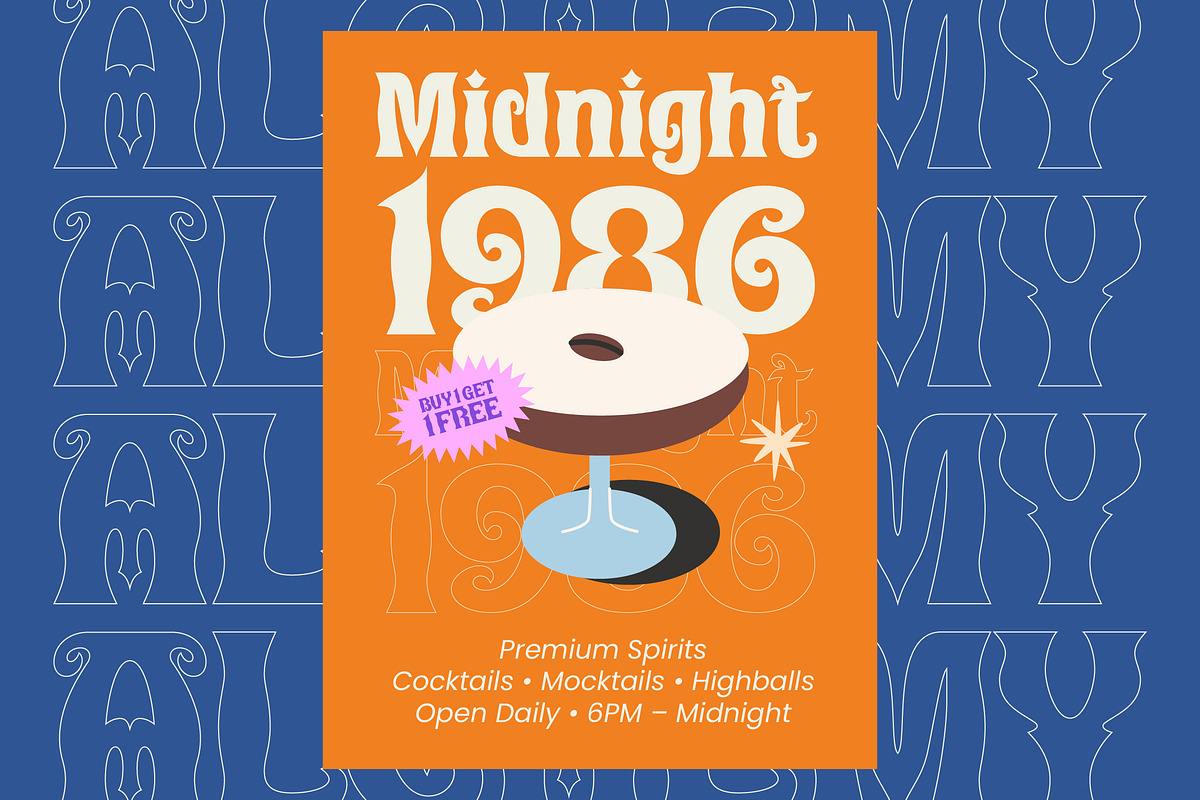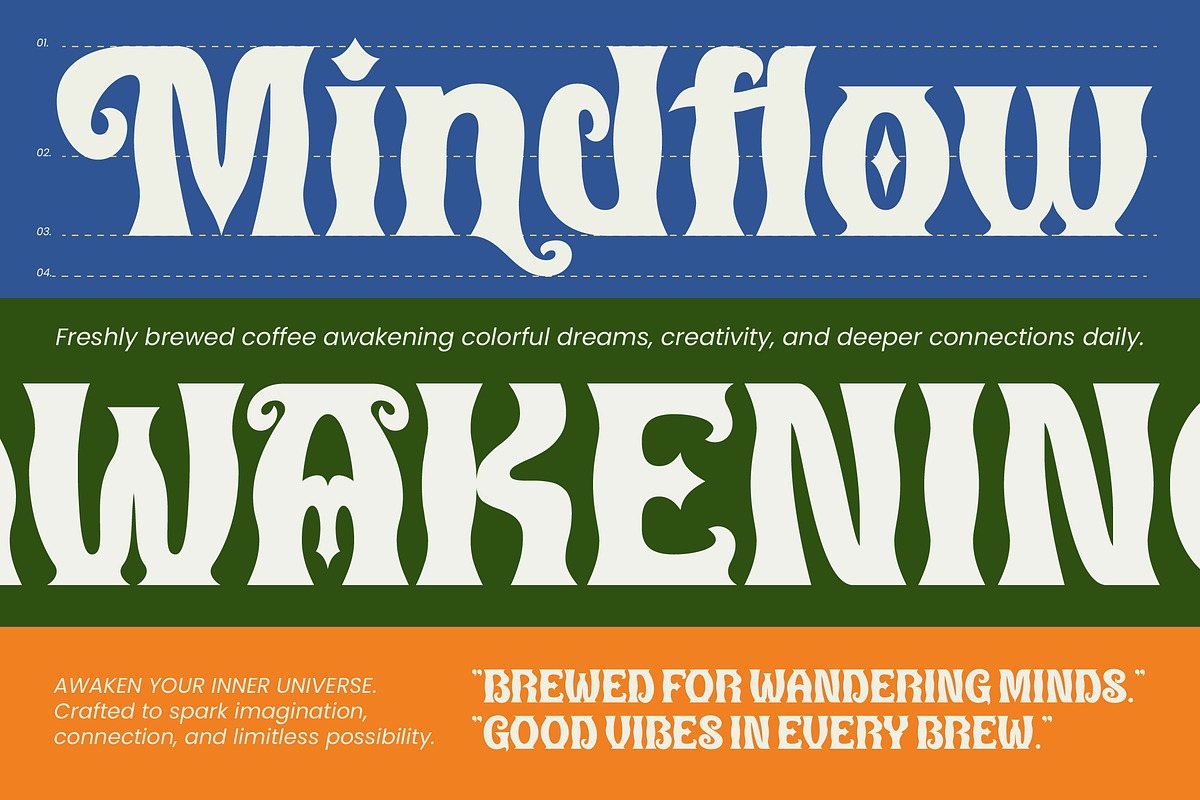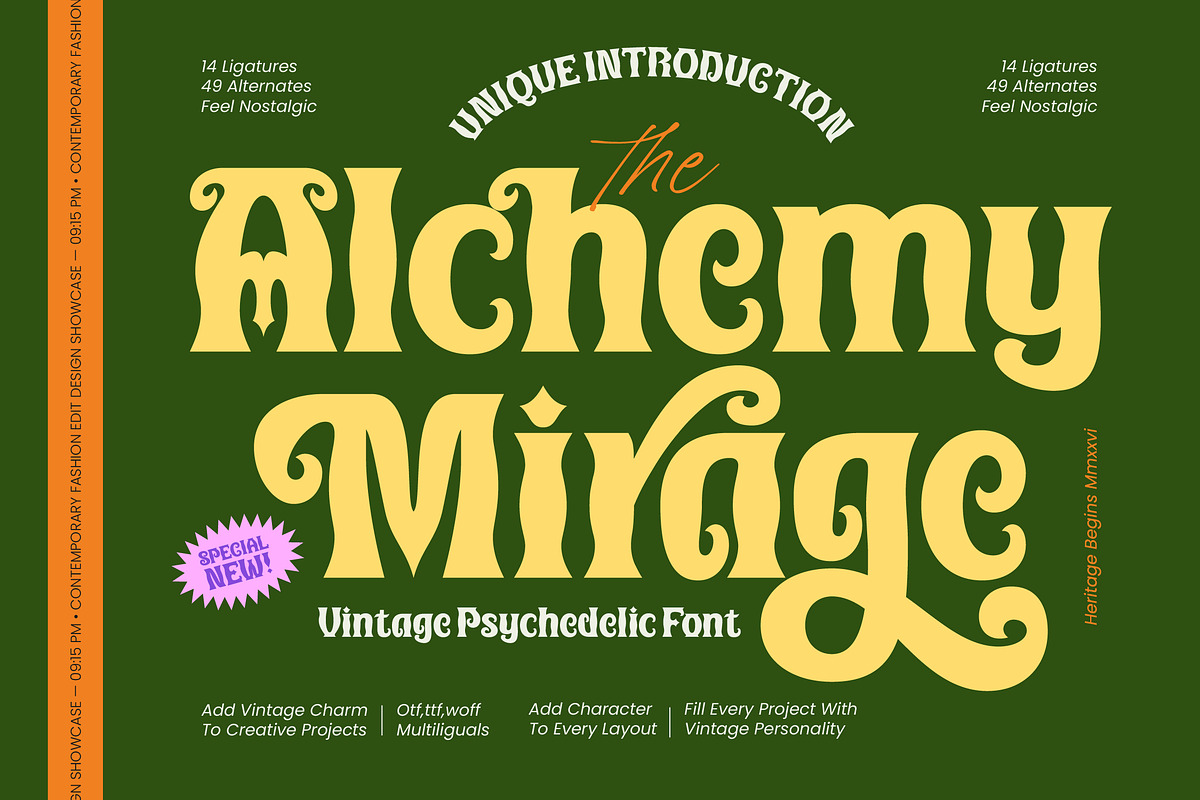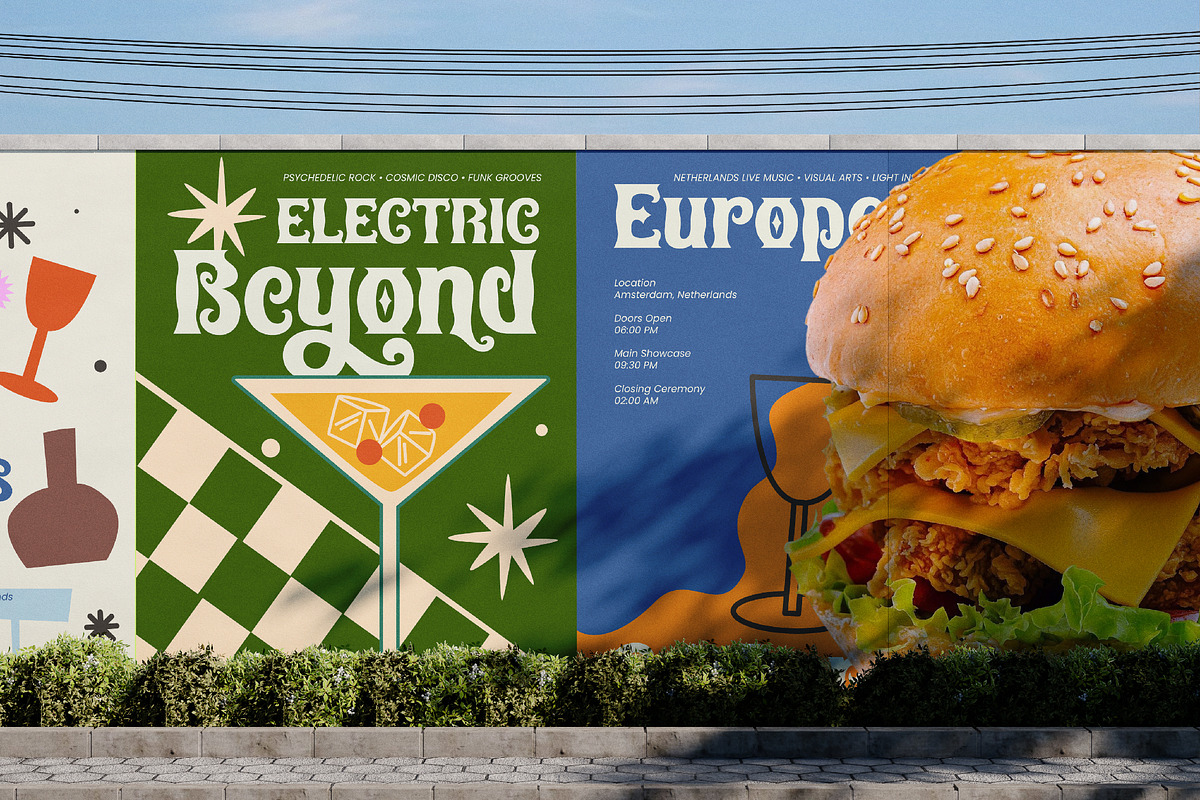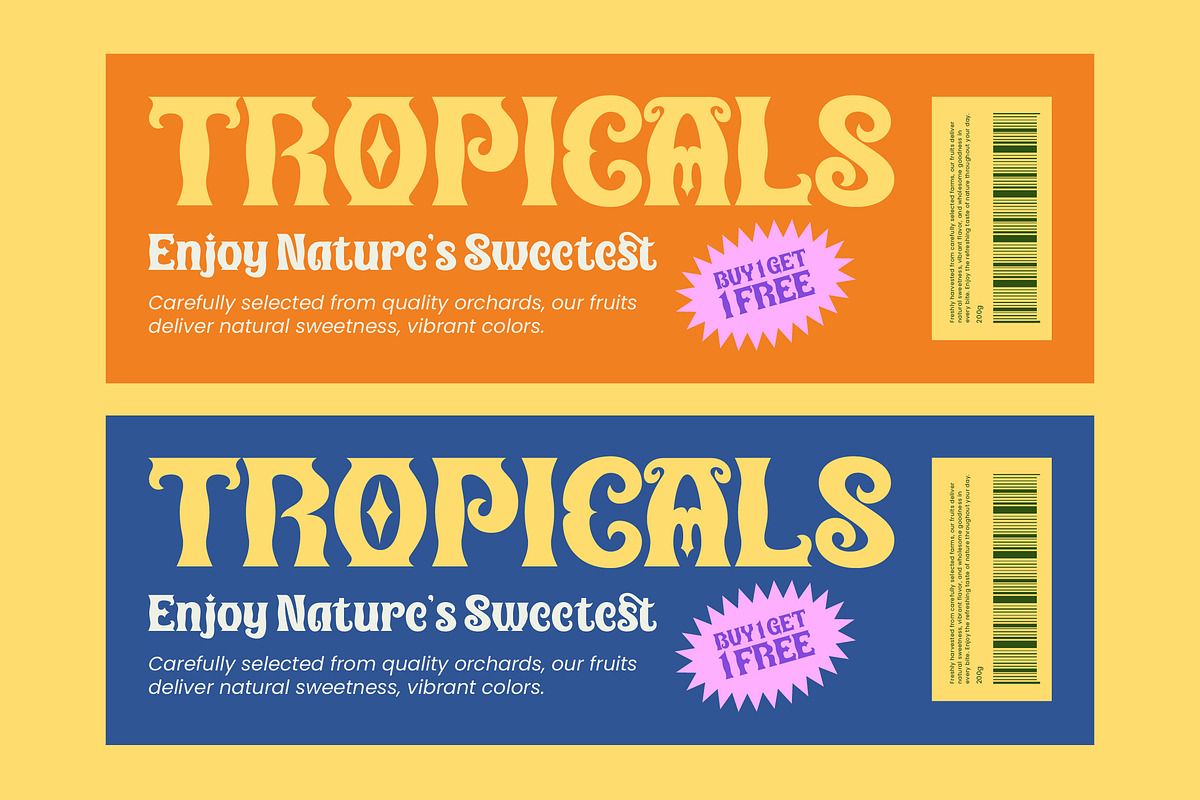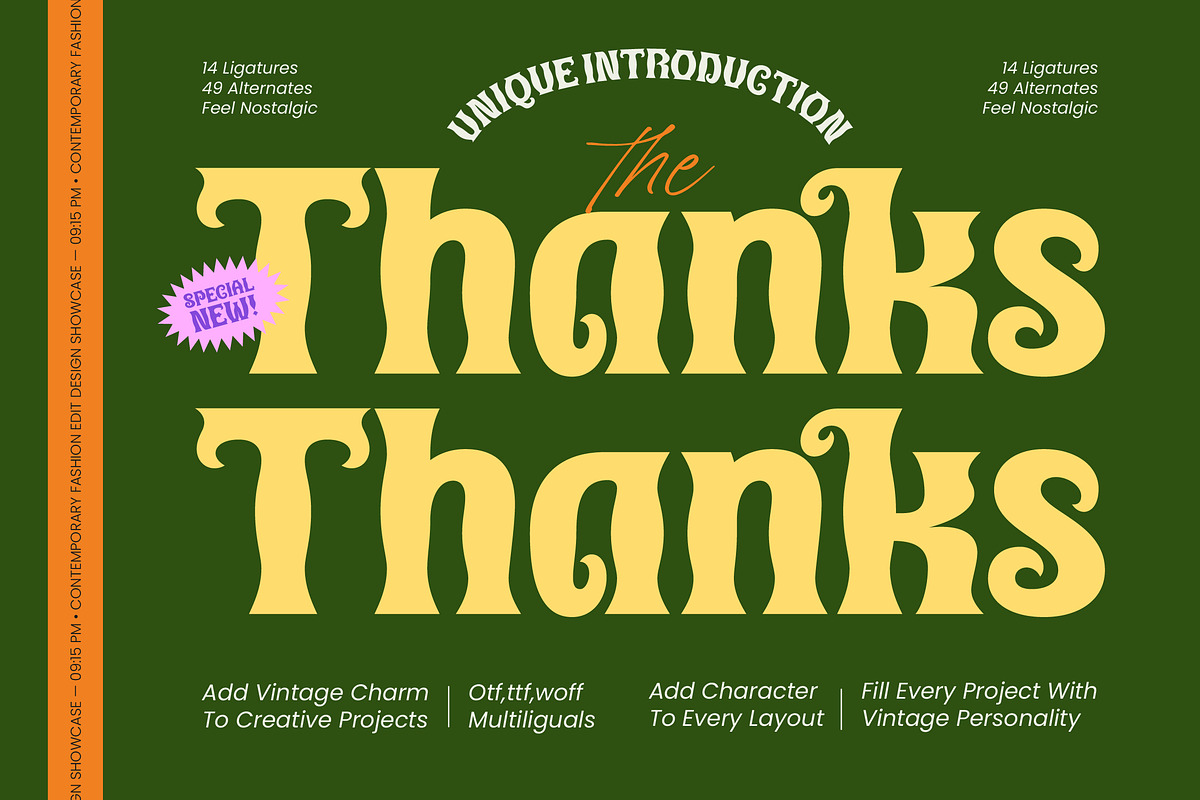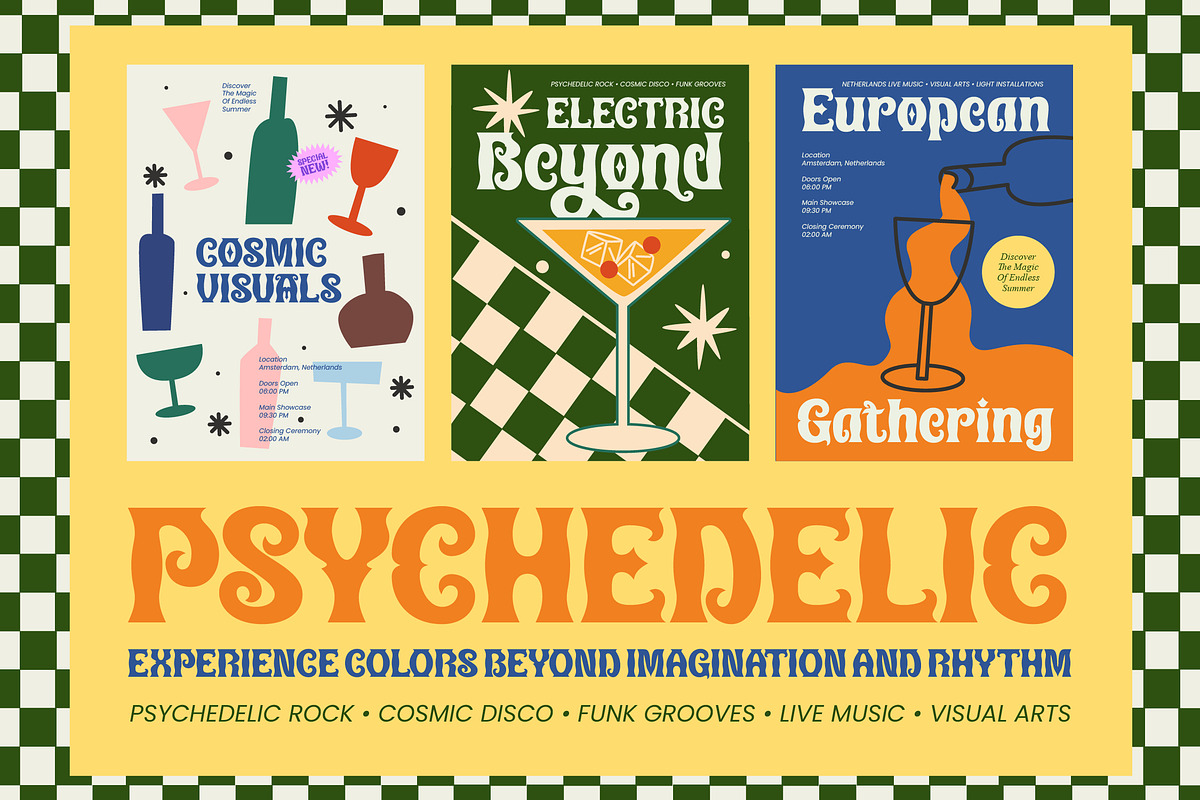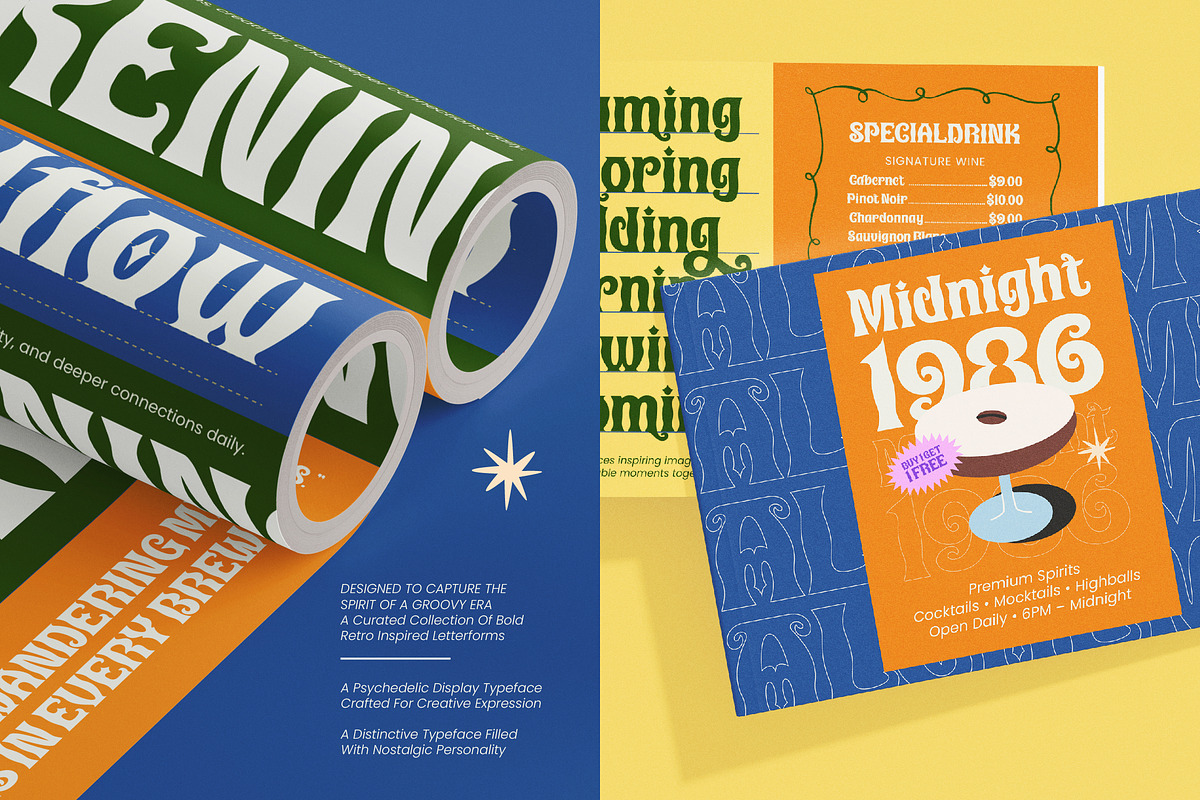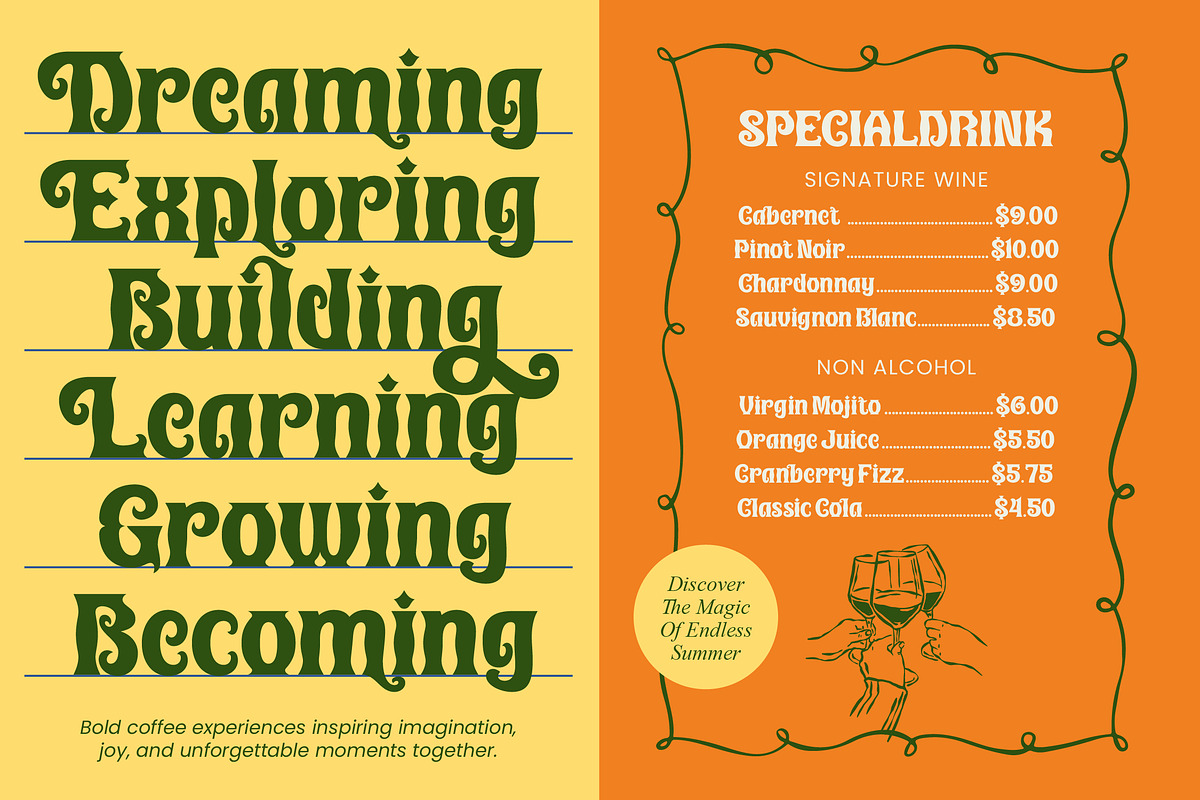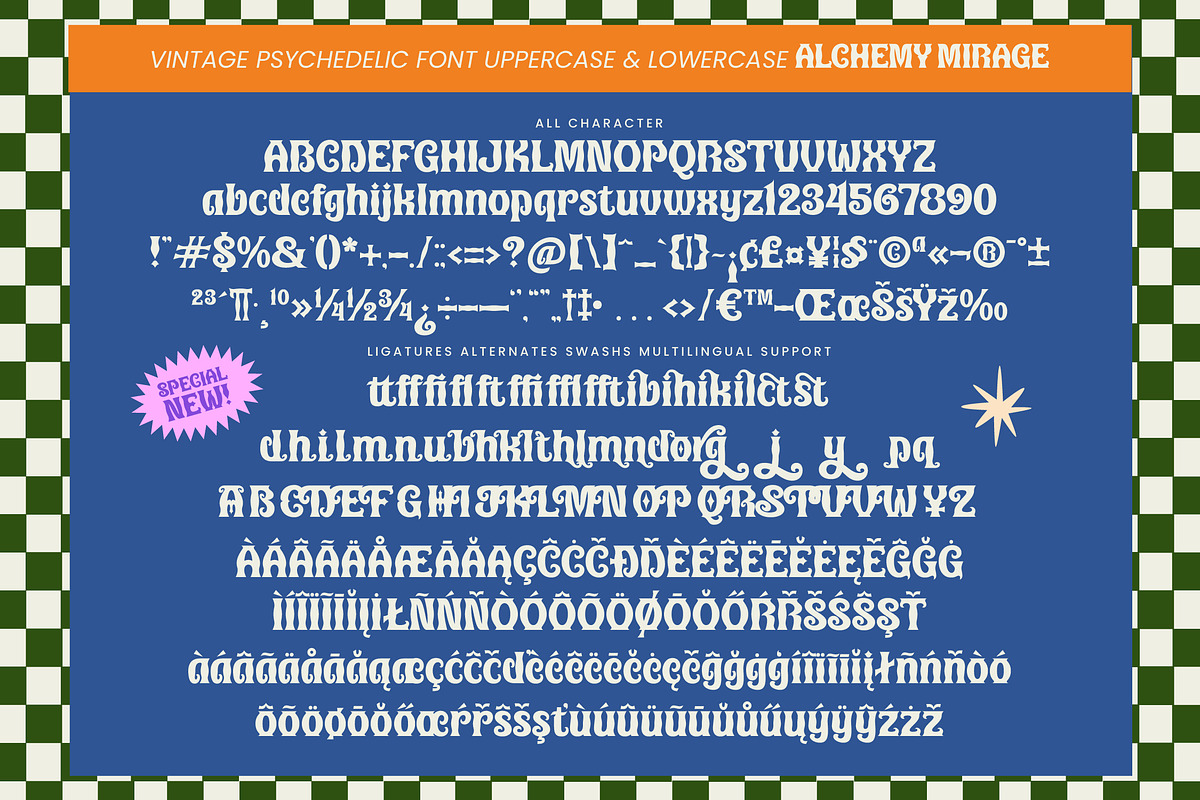
Alchemy Mirage Vintage Psychedelic
Alchemy Mirage – Vintage Psychedelic Font , Experience the mesmerizing allure of Alchemy Mirage – Vintage Psychedelic Font, a typeface that masterfully blends retro aesthetics with contemporary flair. This display font captures the essence of the 1970s psychedelic era, offering fluid curves and bold silhouettes that command attention instantly. Its high-contrast design and liquid-like forms evoke a sense of nostalgia while maintaining the clean lines required for modern professional projects. Whether you are aiming for a whimsical vibe or a sophisticated vintage look, Alchemy Mirage – Vintage Psychedelic Font provides the visual impact necessary to stand out in a crowded market.
Harness the power of unmatched versatility through an extensive collection of 14 unique ligatures and 49 stylistic alternates. These features allow designers to craft bespoke typography that feels custom-made for every layout. With its extensive multilingual support, Alchemy Mirage – Vintage Psychedelic Font adapts seamlessly across global markets, making it incredibly versatile for international projects. The inclusion of various OpenType features ensures that your creative vision is never limited, providing the tools to create dynamic compositions that resonate with audiences worldwide.
Regarding its ideal applications, Alchemy Mirage – Vintage Psychedelic Font is the ultimate choice for luxury branding, lifestyle packaging, and high-end editorial design. It is perfect for creating memorable logos, eye-catching festival posters, and striking social media graphics that require a touch of retro elegance. Its distinctive personality excels in the fashion and music industries, where expressive typography is essential for establishing a unique brand identity. By integrating Alchemy Mirage – Vintage Psychedelic Font into your workflow, you guarantee a premium aesthetic that is both trend-conscious and timeless.
Transform your next design venture into a masterpiece of vintage art with this highly functional typeface. The Alchemy Mirage – Vintage Psychedelic Font is more than just a set of characters; it is a strategic asset for commercial designers looking to inject character and soul into their work. From web headers to physical merchandise, its adaptable nature ensures legibility without sacrificing artistic integrity. Invest in Alchemy Mirage – Vintage Psychedelic Font today to elevate your visual storytelling and secure a competitive edge in the world of high-quality graphic design.